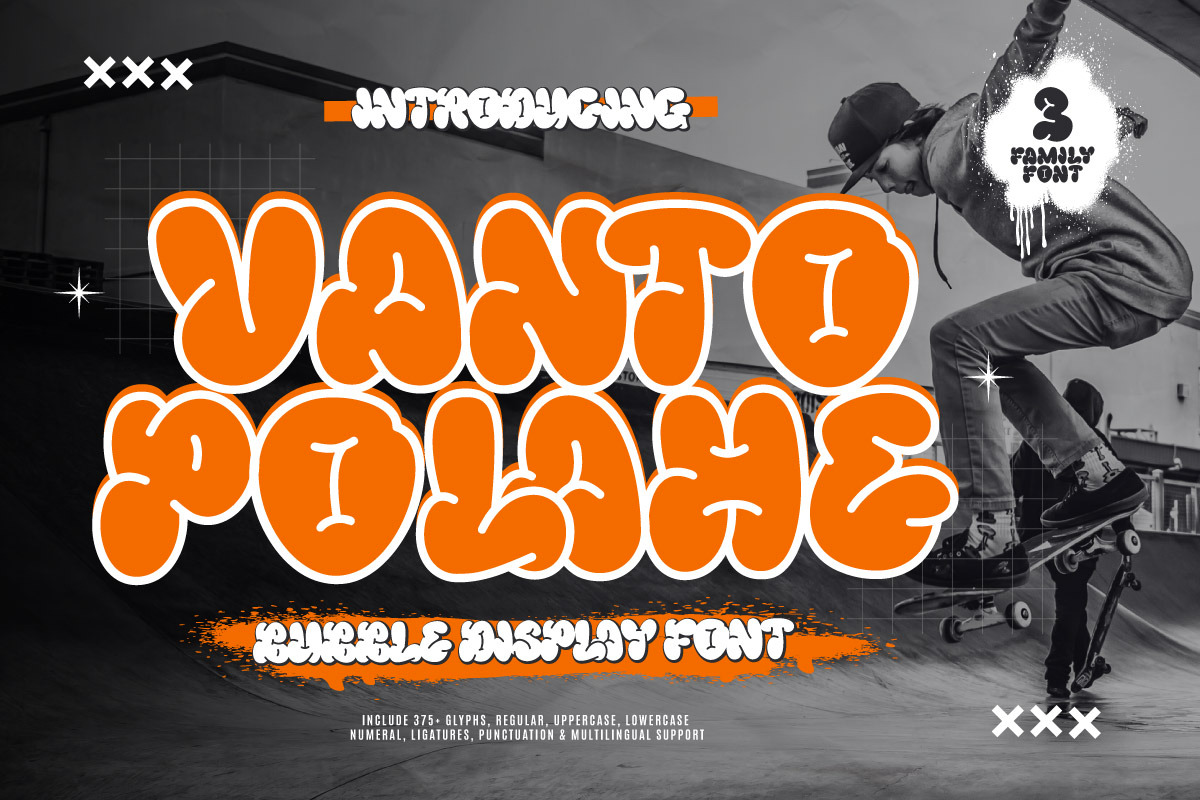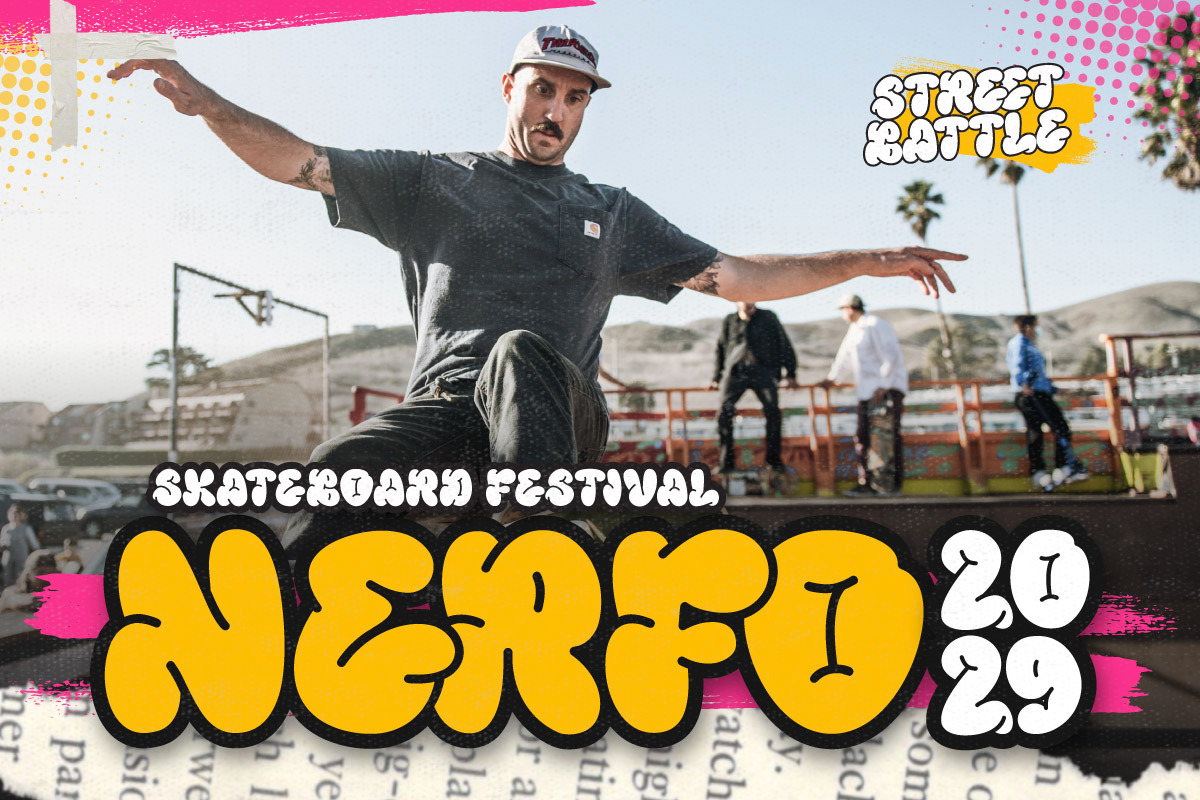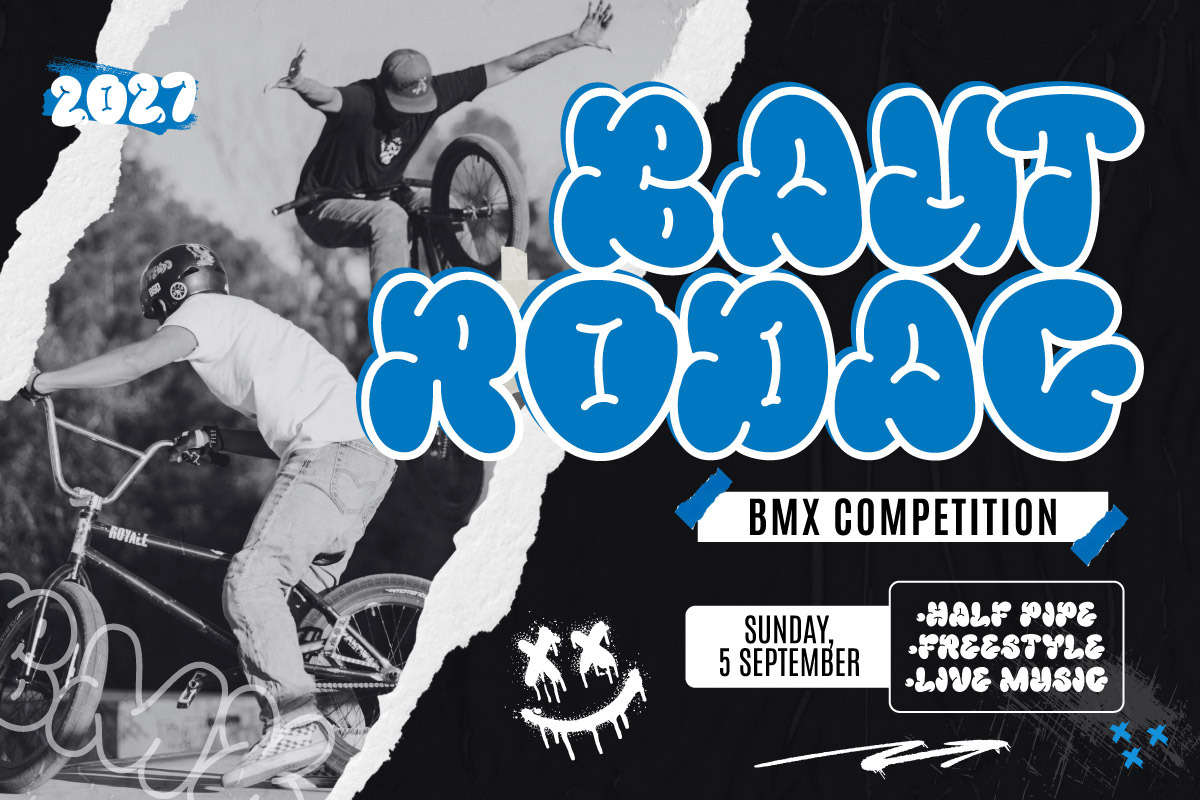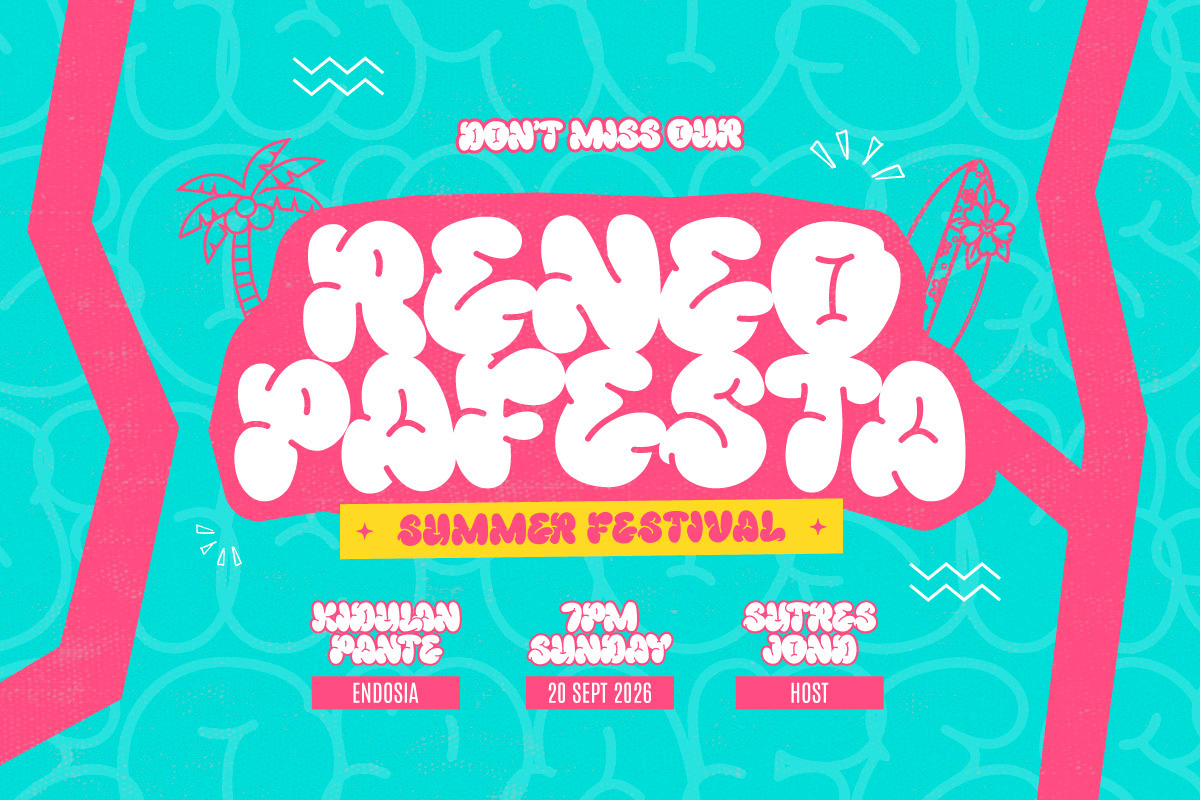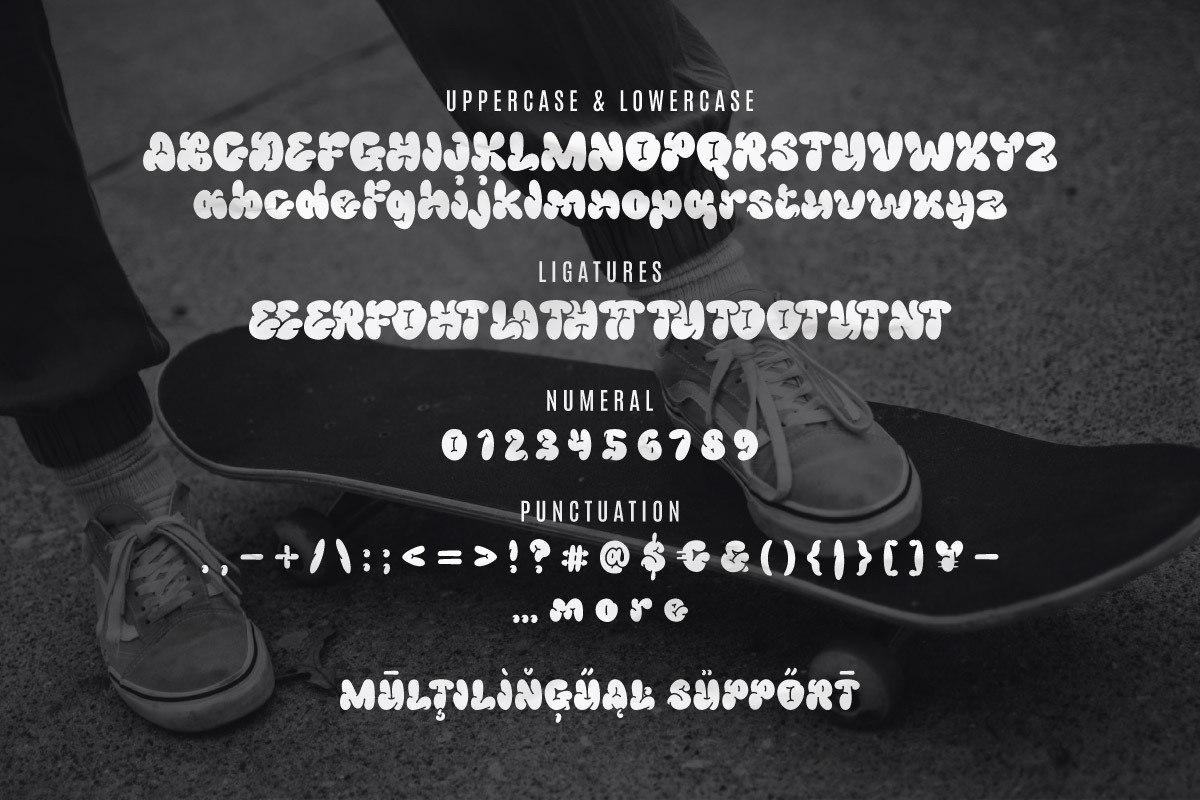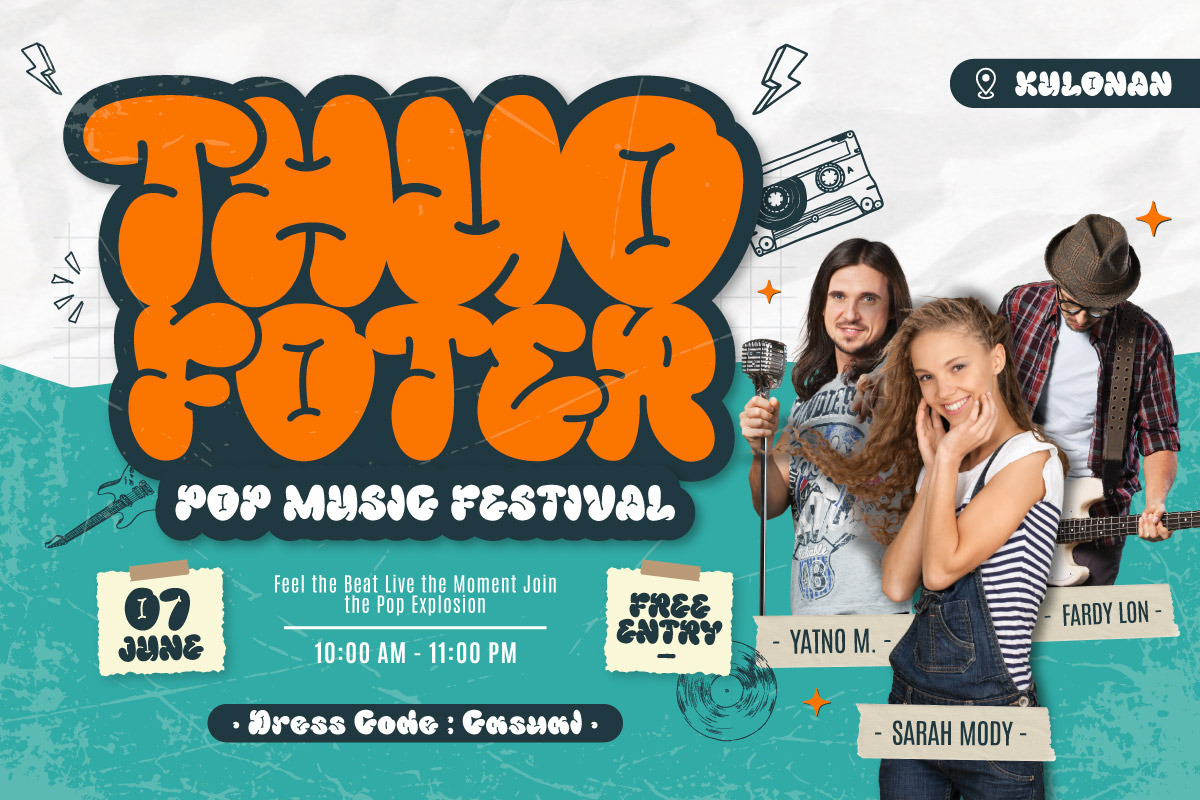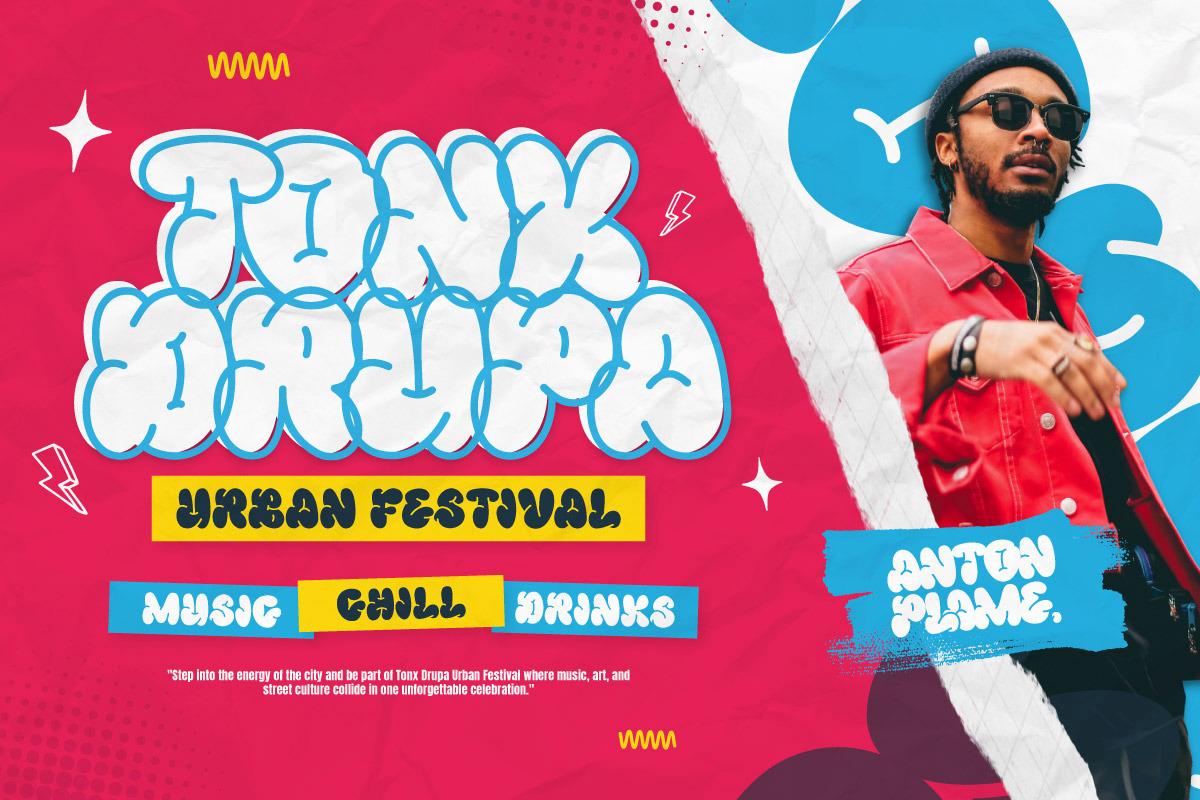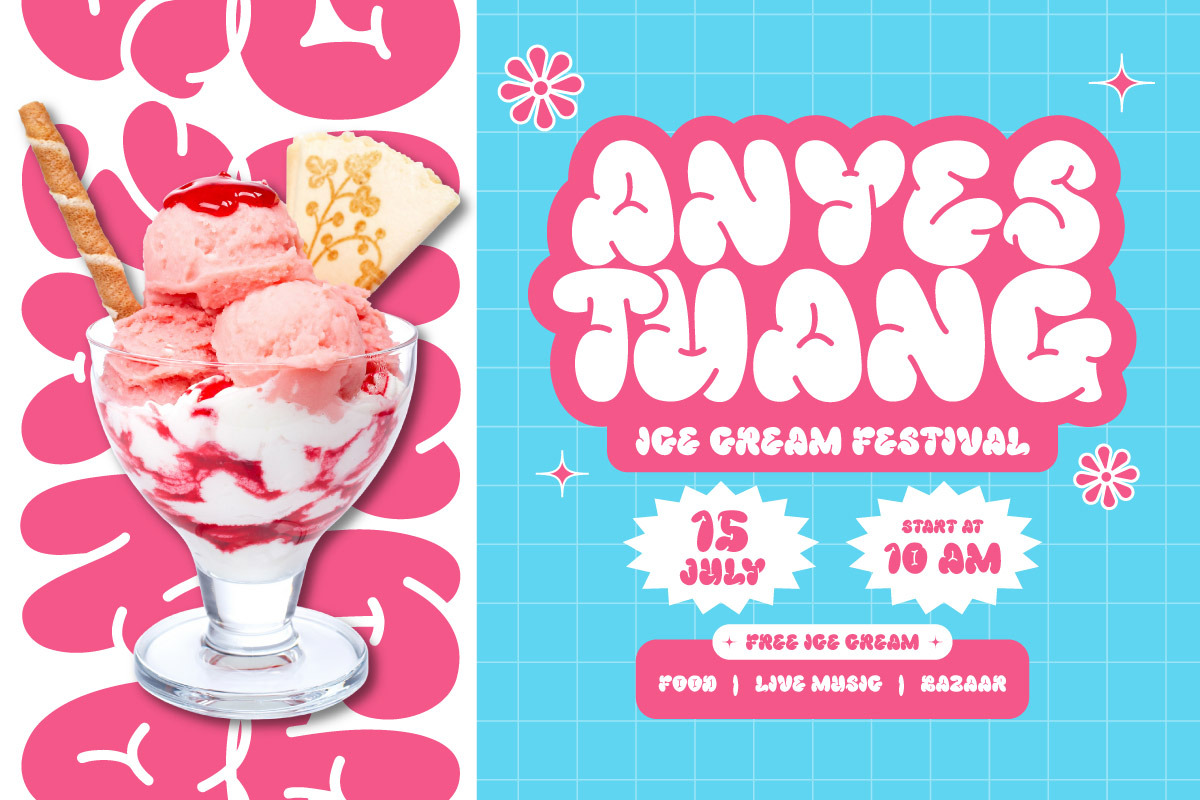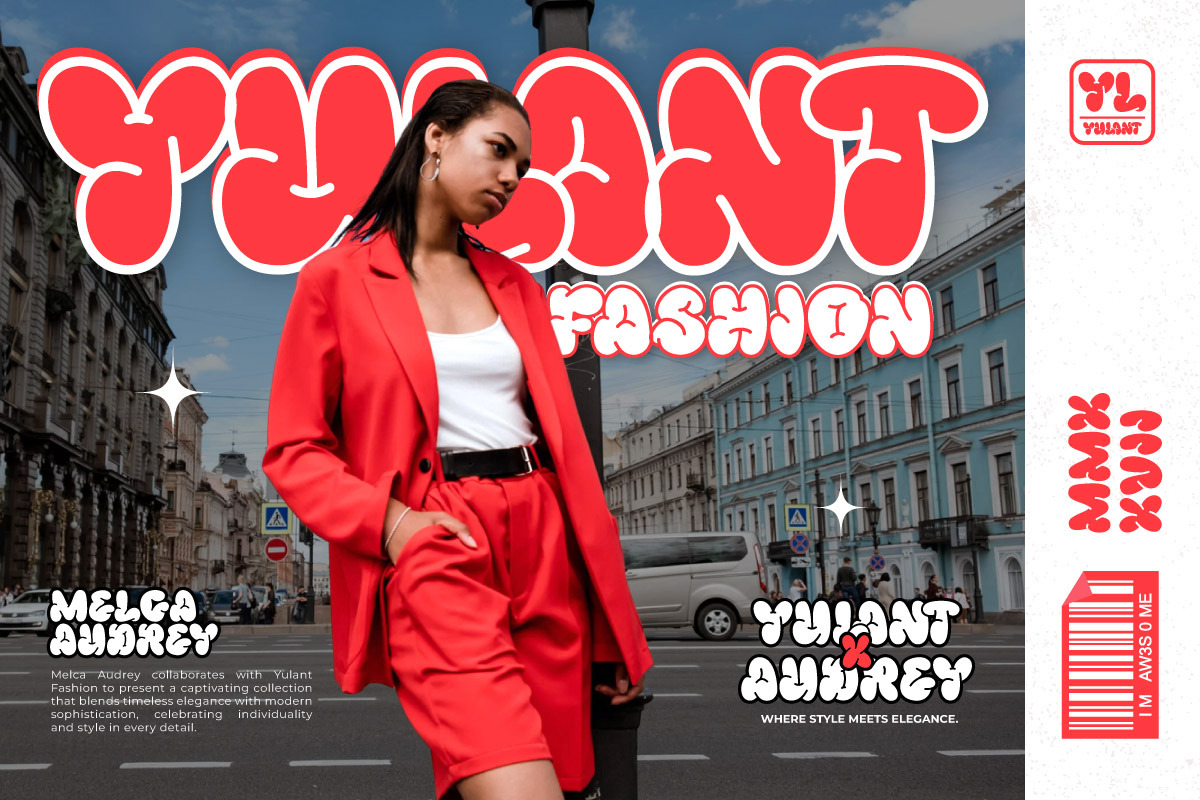
Vanto Polahe - Bubble Fest Font
Vanto Polahe is a bold and playful bubble display font designed to capture the fun, vibrant, and youthful spirit of street culture and festivals. Its rounded, graffiti-inspired letterforms make it perfect for designs that need energy, creativity, and a standout personality.
This font family comes in 3 styles—Regular, Outline, and Solid—giving you flexibility to mix and match for dynamic typography. With 375+ glyphs, including uppercase, lowercase, numerals, punctuation, ligatures, and multilingual support, Vanto Polahe is ideal for posters, music event flyers, skateboarding culture designs, merchandise, social media graphics, and urban branding projects.
Bring your design to life with Vanto Polahe, a font that’s bold, bouncy, and unforgettable!